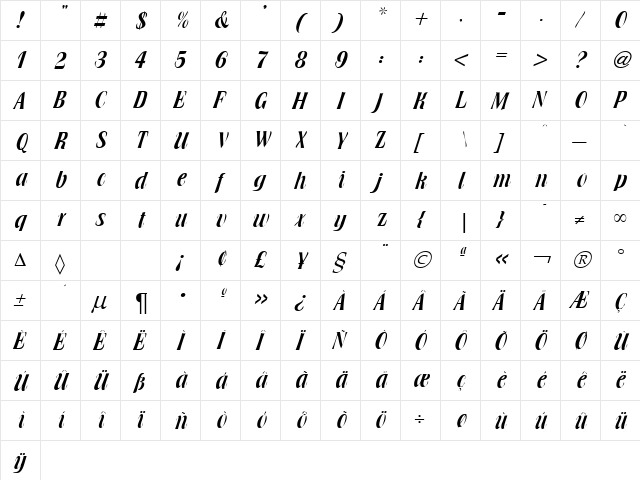
Browning DB Regular
Design Context for Browning DB Typeface
Browning DB offers clean, dependable letterforms without strong stylistic allegiance, making it a practical choice for designers who need flexibility.